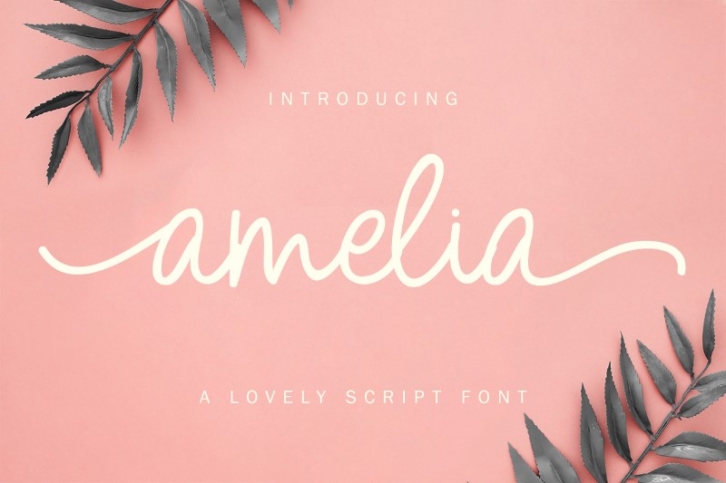
Introducing Amelia Script- handwritten font. Amelia is a beautiful monoline font . This font is suitable for any design like branding, quotes, t-shirt printing and etc.
Accents (Multilingual Characters)
52 Beautiful Stylishtic
Numerals and Punctuations (OpenType Standard)